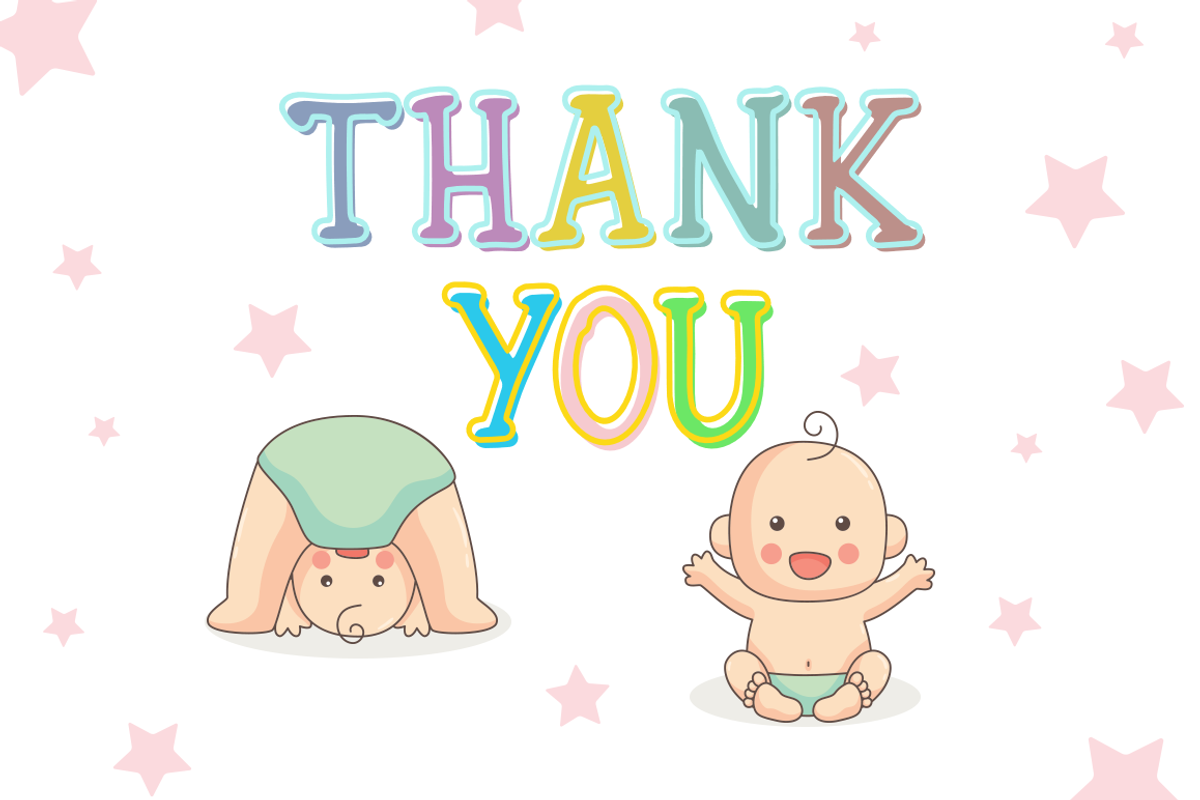
White Horse
White Horse This font was created together with my daughter, she is only four years old and she is very creative! she has always inspired me, and she took part in the creation of this font, as well as in the choice preview images. I hope you like it!
This font is ideal for branding and decorate your any project, are perfect for wedding invitation or your blog. Also with their help, you can create a logo or beautiful frame for your home. Or just use for your small business, book covers, stationery, marketing, magazines and more.